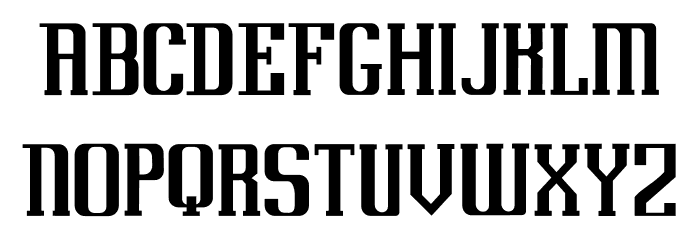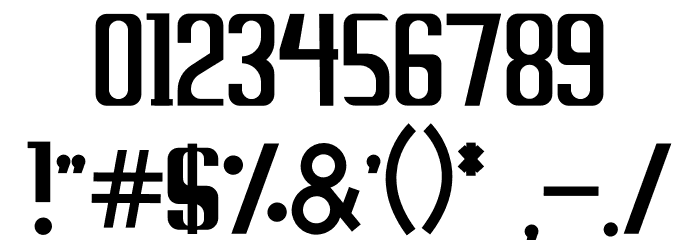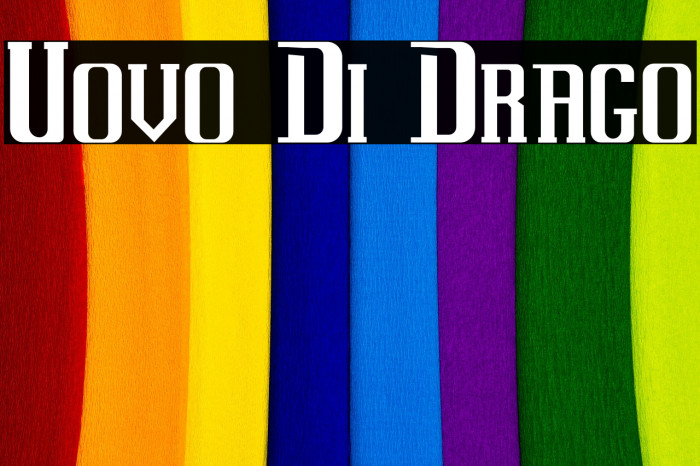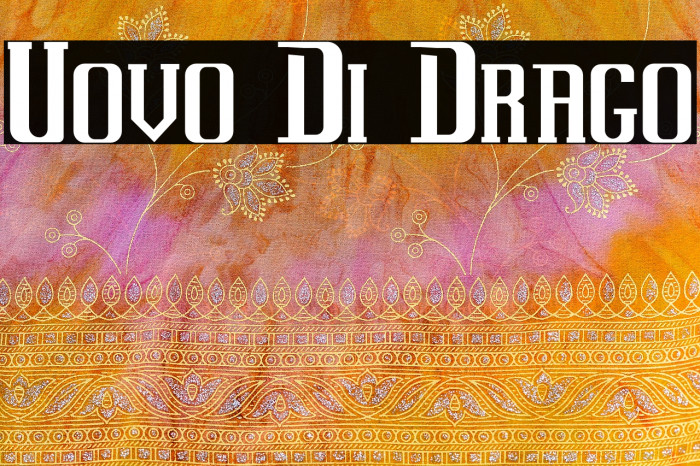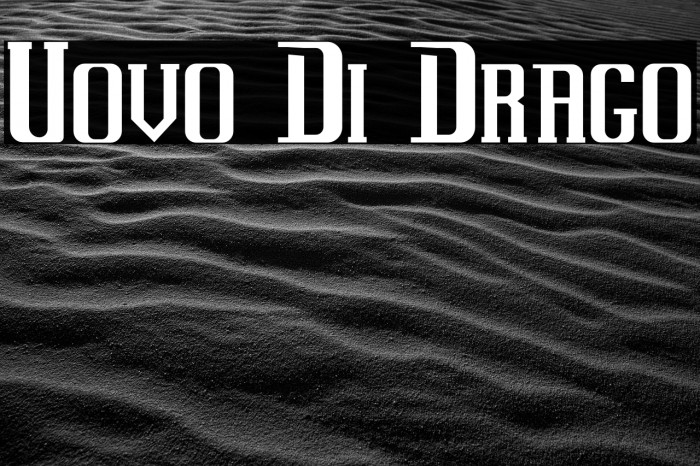
Uovo Di Drago Font
This font features a bold and striking design with a strong presence. The characters are tall and narrow, giving a condensed appearance that enhances its dramatic flair. The uppercase letters have a unique geometric style with sharp angles and clean lines, while the lowercase letters maintain a consistent height and width, ensuring readability. The numbers are equally bold, matching the overall aesthetic of the font. Special characters are designed with the same attention to detail, making them stand out. This font is ideal for creating impactful headlines and logos, where a strong visual statement is required.
A bold, geometric font with a condensed and striking design.
- Proposed Projects: Ideal for branding, posters, headlines, and logo design.